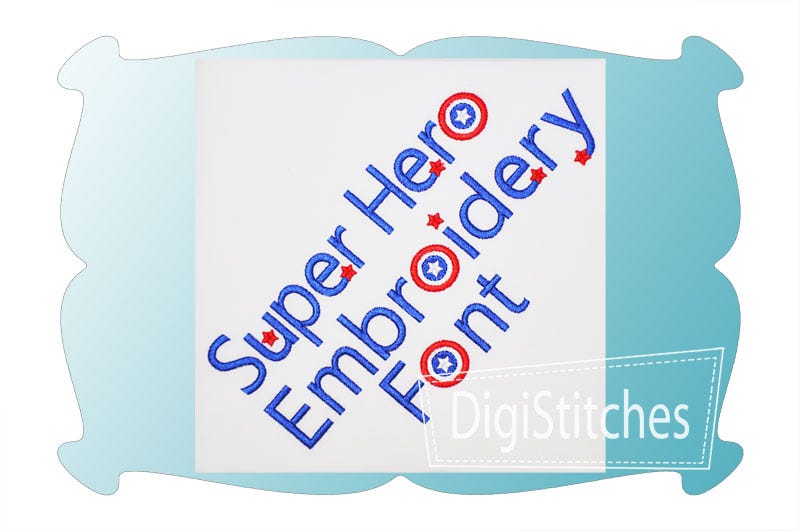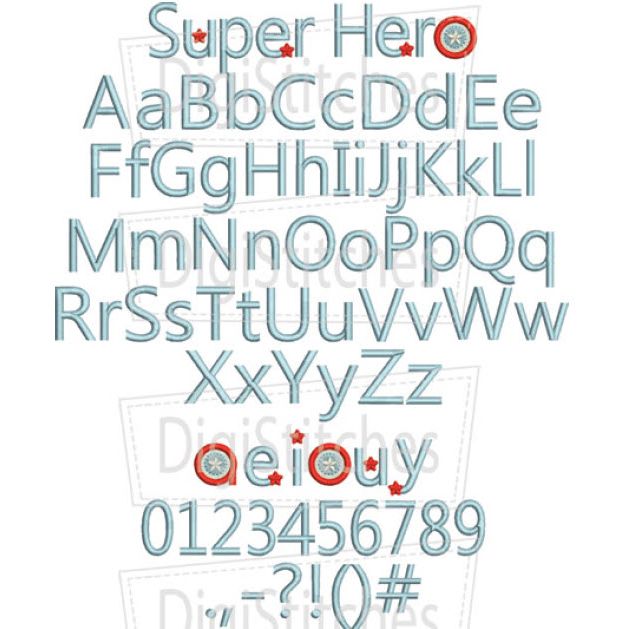
Super Hero Embroidery Font
Super Hero embroidery font features super bold letters that really stand out on t-shirts and projects.
The cute star themed letters are sure to be a fun addition to your next super hero embroidery project!